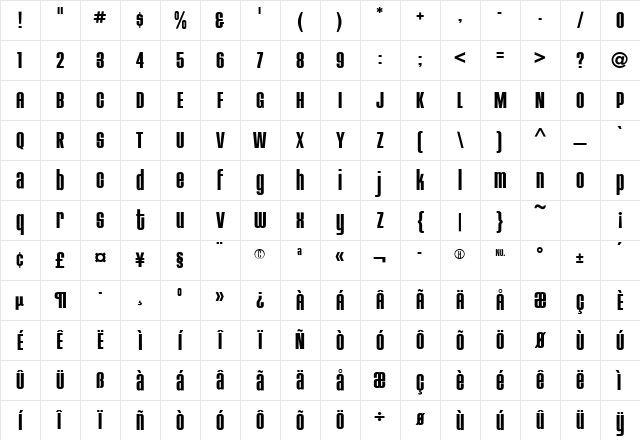
Complete HouseGothic Bold glyph index. Displaying only characters natively supported by HouseGothic Bold font.
HouseGothic takes a clean, functional approach - its unadorned letterforms prioritise legibility and work reliably across screen and print environments. Its bold stroke weight gives it real presence on the page.
Font Pairing: Use HouseGothic for headlines alongside a lighter-weight sans or serif for body copy to establish clear visual hierarchy.
Pro Tip: Use HouseGothic for UI labels, navigation, and short-form body copy where clean legibility is the priority.